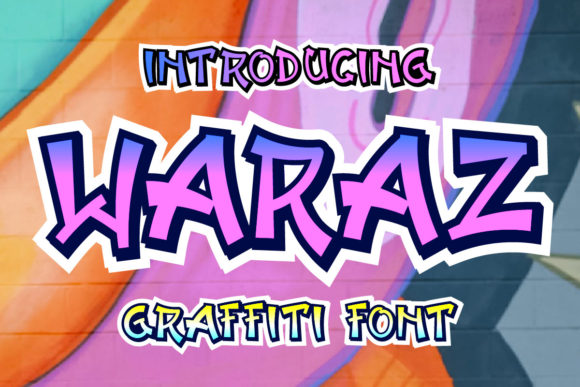
Venture into the world of unbridled cuteness and whimsy with Waraz Font, the display font that will ignite your imagination and transform your designs into captivating masterpieces. Dive into a sea of boundless creativity as you explore the endless possibilities that await within this font's charming embrace.
Indulge in the playful spirit of Waraz Font, where every letter dances with a vibrant personality, exuding an aura of pure joy and delight. Its bold strokes and cartoonish flair create an unforgettable visual impact, leaving an enduring impression on anyone who encounters your creations.
As you embark on your design journey with Waraz Font, prepare to be captivated by its versatility. Whether you're crafting eye-catching posters, designing cheerful invitations, or adding a touch of whimsy to your social media posts, this font seamlessly adapts to your every need. Its playful nature lends itself effortlessly to a wide range of projects, ensuring that your designs burst with an infectious charm that resonates with audiences of all ages.
With Waraz Font, you'll discover a font that is not merely a design tool, but an expression of your own unique style. Its bold and animated presence commands attention, inviting viewers to delve into the captivating world you've created. Unleash your creativity and let Waraz Font be your artistic muse, transforming your designs into captivating works of art.
Don't settle for ordinary fonts that fail to ignite your imagination. Embrace the extraordinary with Waraz Font and embark on a creative adventure where cuteness, boldness, and whimsy collide. Experience the joy of creating designs that radiate happiness, leaving an unforgettable impression on whoever encounters them.